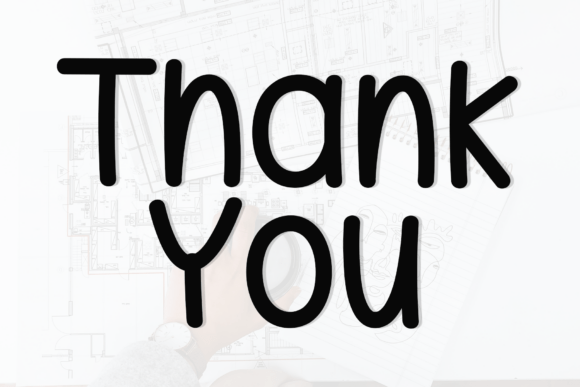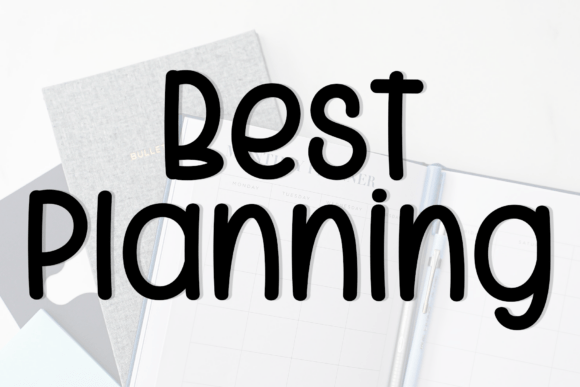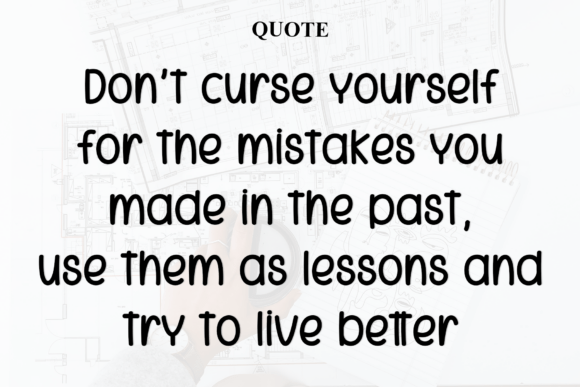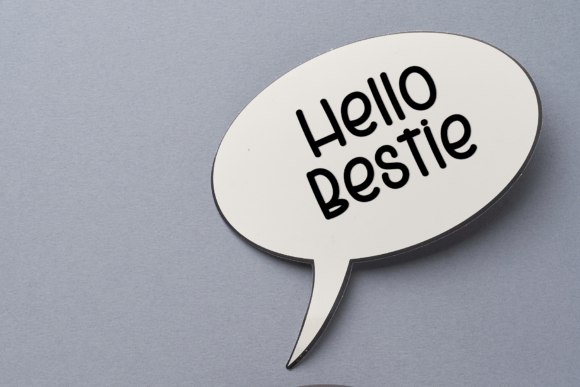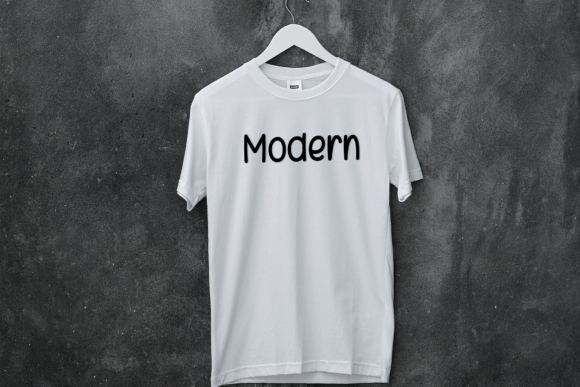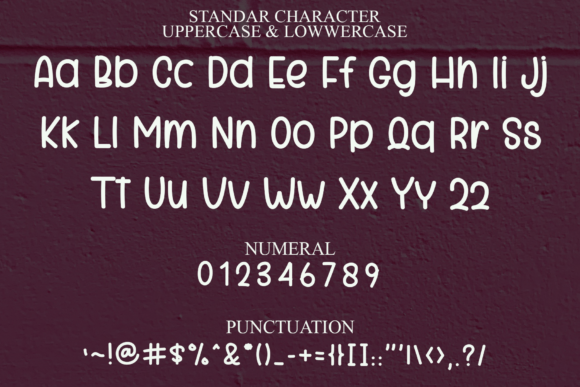
Introducing the Birthday Planner Font: A Sweet and Friendly Addition to Your Design Arsenal
Are you a designer or crafter looking for a font that can add a touch of warmth and personality to your projects? Look no further than the Birthday Planner font! This sweet and friendly font is perfect for creating a wide range of designs, from birthday cards and invitations to party decorations and DIY crafts. In this article, we’ll take a closer look at the Birthday Planner font, its unique features, and how you can use it to take your designs to the next level.
A Font that’s as Unique as You
The Birthday Planner font is a one-of-a-kind typeface that’s sure to make your designs stand out from the crowd. Its natural and unique style is reminiscent of handwritten notes and letters, making it perfect for creating personal and heartfelt designs. Whether you’re creating a custom birthday card, a party invitation, or a DIY craft, this font is sure to add a touch of warmth and personality to your project.
One of the things that sets the Birthday Planner font apart is its versatility. This font can be used for a wide range of designs, from formal and elegant to playful and whimsical. Whether you’re creating a design for a child’s birthday party or a adult’s celebration, this font is sure to fit the bill.
The only limit to what you can create with the Birthday Planner font is your imagination! This font can be used for a wide range of designs, including:
- Birthday cards and invitations
- Party decorations and banners
- DIY crafts and gifts
Whether you’re a professional designer or a crafty DIY enthusiast, the Birthday Planner font is sure to inspire you to create something truly special. Its unique and playful style makes it perfect for adding a personal touch to your designs, and its versatility ensures that you can use it for a wide range of projects.
Why Choose the Birthday Planner Font?
So why choose the Birthday Planner font for your next design project? Here are just a few reasons why this font stands out from the crowd:
- Unique and playful style: The Birthday Planner font has a one-of-a-kind style that’s sure to make your designs stand out.
- Versatile: This font can be used for a wide range of designs, from formal and elegant to playful and whimsical.
- Easy to read: Despite its playful style, the Birthday Planner font is easy to read and understand, making it perfect for designs that need to be clear and concise.
- Perfect for DIY projects: This font is perfect for DIY enthusiasts and crafters who want to add a personal touch to their projects.
Tips for Using the Birthday Planner Font
Here are a few tips for using the Birthday Planner font in your designs:
- Pair it with other fonts: The Birthday Planner font pairs well with other fonts, so don’t be afraid to experiment with different combinations.
- Use it for headings and titles: This font is perfect for headings and titles, where you want to make a bold and playful statement.
- Add some color: The Birthday Planner font looks great in a variety of colors, so don’t be afraid to add some color to your designs.